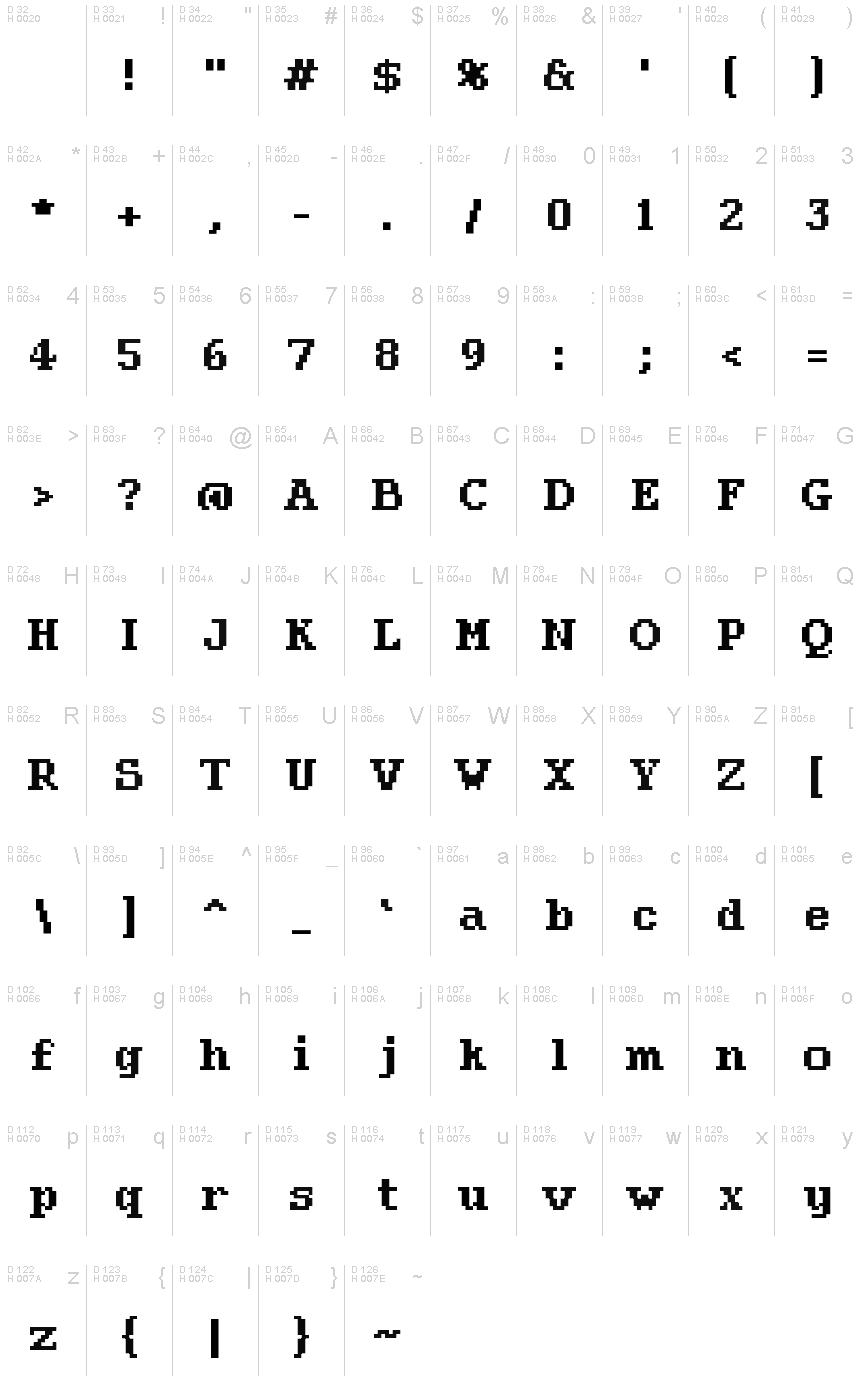
Pixolde-Bold
Pixolde is a captivating bitmap font that effortlessly blends the timeless charm of a serif typeface with the distinct character of a pixelated, typewriter-inspired aesthetic. Crafted by designer Jeti, this bold font exudes a sense of retro-futuristic appeal, making it a versatile choice for a wide range of design applications.
The defined, geometric letterforms and bold weight of Pixolde lend themselves particularly well to eye-catching headlines, attention-grabbing branding, and nostalgic, pixel-art inspired projects. Its distinct visual identity can elevate the mood of any design, seamlessly transitioning from modern, minimalist compositions to playful, retro-inspired layouts.